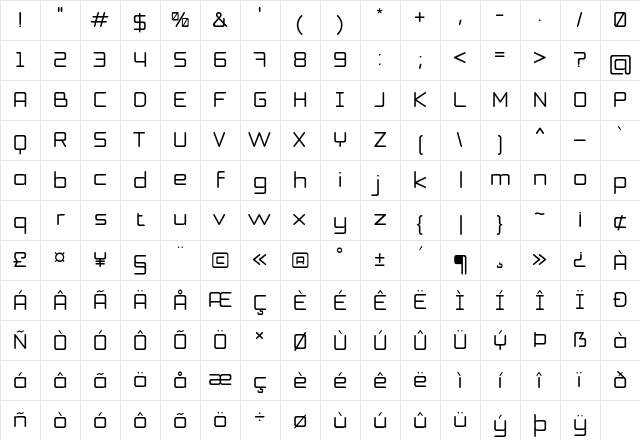
Honor Regular Font Preview
Honor Regular
Honor Regular Font Details
Design Context for Honor Typeface
Honor offers clean, dependable letterforms without strong stylistic allegiance, making it a practical choice for designers who need flexibility.
Pro Tip: Use Honor in both headline and body roles to test its range before committing to a single application.